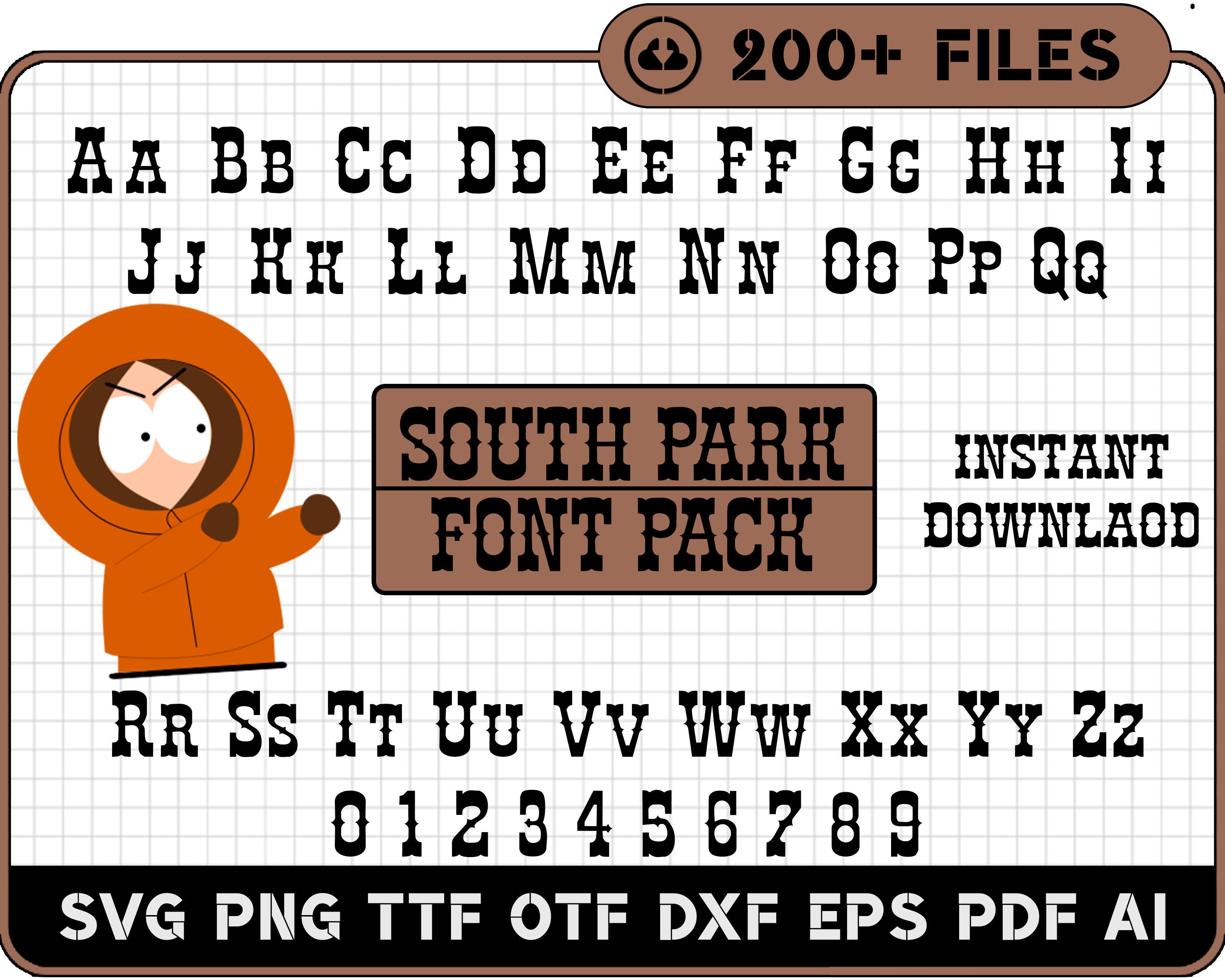
South Park Font Generator - Click to find the best 3 free fonts in the south park style. Simply generate text images and share. Enter your text, select a font,. Every font is free to. Web use our free south park font generator tool below to create your own custom design logo or image. Released in 1991 by jobanbal and licensed for personal and commercial. Web free download of south park font. Generate cool and amazing fonts by using south park font generator. Web the south park font is a cartoon font that features bold and irregular letterforms. Web create a text effect south park with our online custom font generator.
It is free to download and use, and it comes. Every font is free to. Web free download of south park font. Looking for south park fonts? Click to find the best 3 free fonts in the south park style. Released in 1991 by jobanbal and licensed for personal and commercial. Web the south park font is a cartoon font that features bold and irregular letterforms. Generate cool and amazing fonts by using south park font generator. Web use our free south park font generator tool below to create your own custom design logo or image. Enter your text, select a font,.
It is free to download and use, and it comes. Generate cool and amazing fonts by using south park font generator. Simply generate text images and share. Enter your text, select a font,. Web the south park font is a cartoon font that features bold and irregular letterforms. Looking for south park fonts? Click to find the best 3 free fonts in the south park style. Released in 1991 by jobanbal and licensed for personal and commercial. Every font is free to. Web free download of south park font.
Web use our free south park font generator tool below to create your own custom design logo or image. Enter your text, select a font,. It is free to download and use, and it comes. Web the south park font is a cartoon font that features bold and irregular letterforms. Generate cool and amazing fonts by using south park font.
Simply generate text images and share. Web the south park font is a cartoon font that features bold and irregular letterforms. Generate cool and amazing fonts by using south park font generator. Click to find the best 3 free fonts in the south park style. Released in 1991 by jobanbal and licensed for personal and commercial.
Web create a text effect south park with our online custom font generator. Web free download of south park font. It is free to download and use, and it comes. Web the south park font is a cartoon font that features bold and irregular letterforms. Released in 1991 by jobanbal and licensed for personal and commercial.
It is free to download and use, and it comes. Web the south park font is a cartoon font that features bold and irregular letterforms. Every font is free to. Simply generate text images and share. Released in 1991 by jobanbal and licensed for personal and commercial.
Every font is free to. Enter your text, select a font,. Simply generate text images and share. Web the south park font is a cartoon font that features bold and irregular letterforms. Looking for south park fonts?
Enter your text, select a font,. Click to find the best 3 free fonts in the south park style. Web the south park font is a cartoon font that features bold and irregular letterforms. Looking for south park fonts? Web use our free south park font generator tool below to create your own custom design logo or image.
Enter your text, select a font,. Every font is free to. Web the south park font is a cartoon font that features bold and irregular letterforms. Released in 1991 by jobanbal and licensed for personal and commercial. Simply generate text images and share.
Web Use Our Free South Park Font Generator Tool Below To Create Your Own Custom Design Logo Or Image.
Simply generate text images and share. Released in 1991 by jobanbal and licensed for personal and commercial. It is free to download and use, and it comes. Every font is free to.
Looking for south park fonts? Web create a text effect south park with our online custom font generator. Web the south park font is a cartoon font that features bold and irregular letterforms. Generate cool and amazing fonts by using south park font generator.